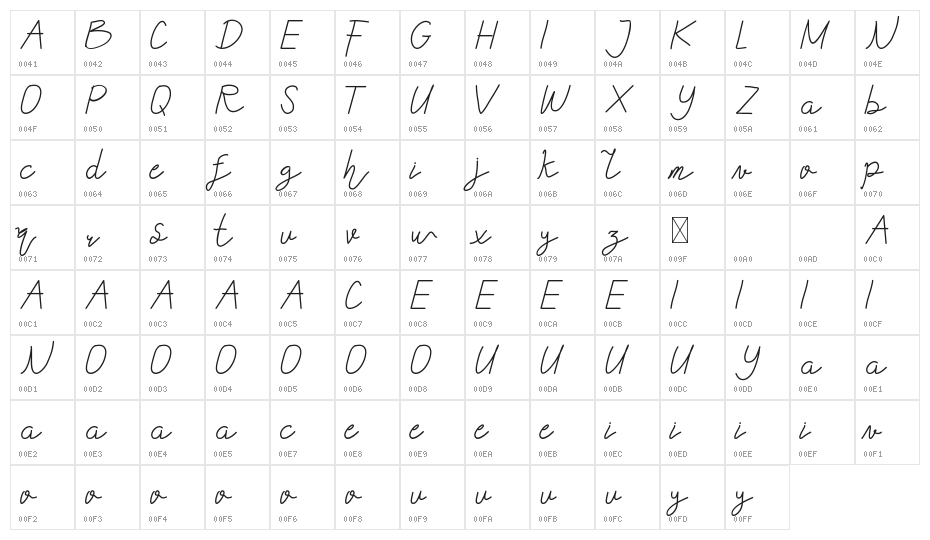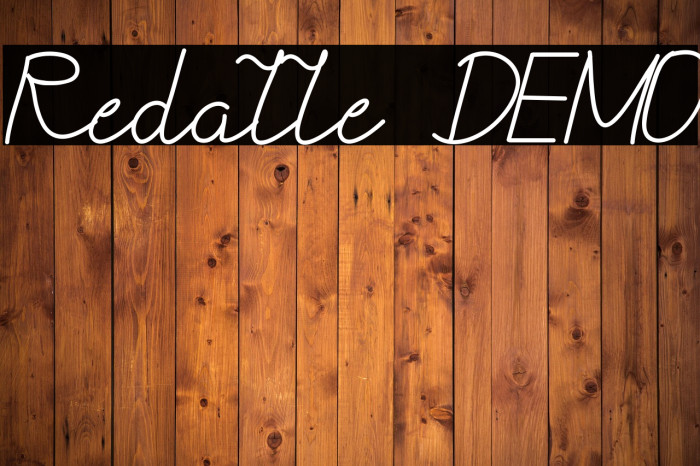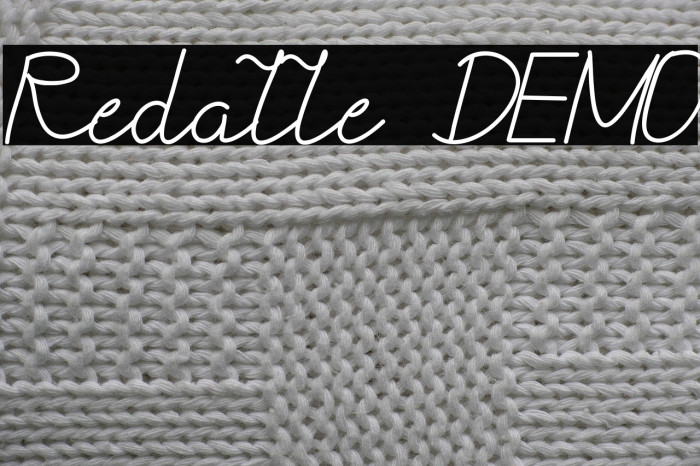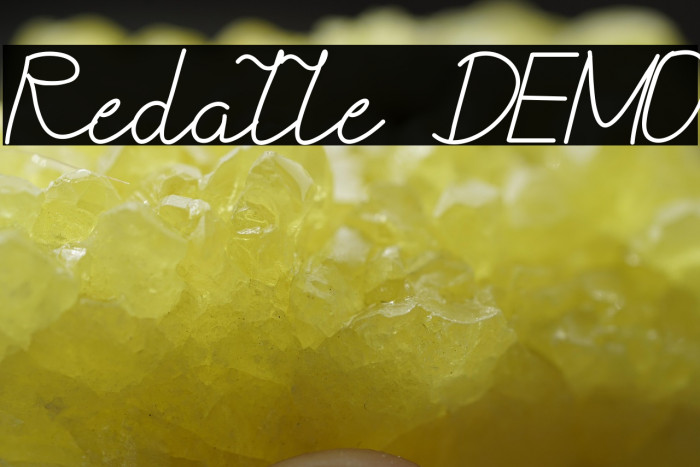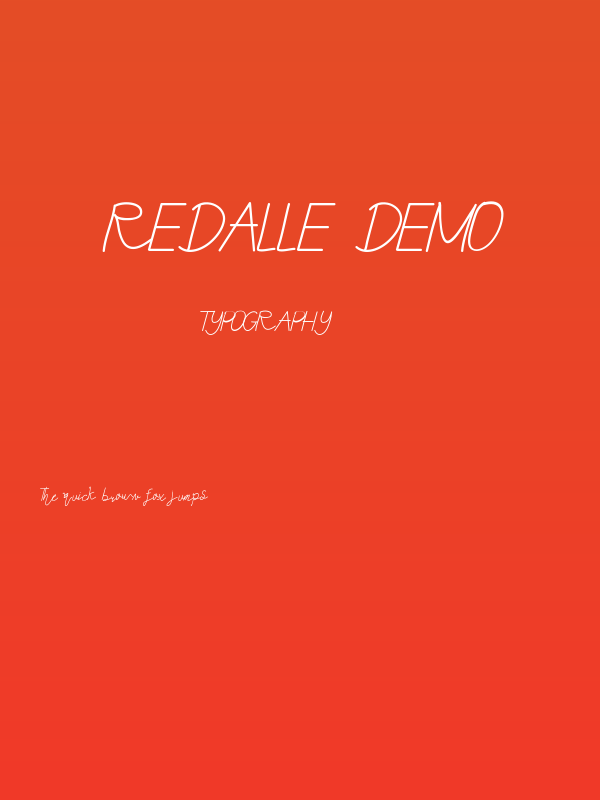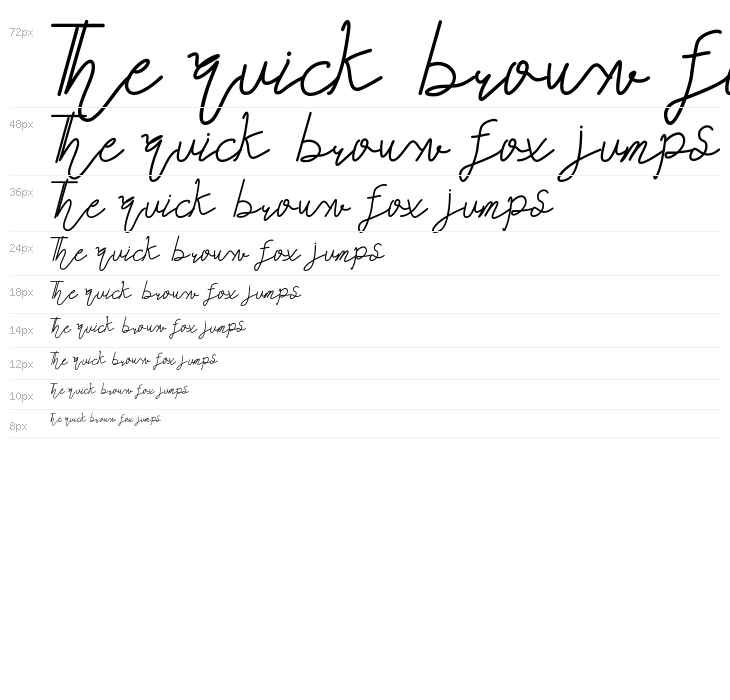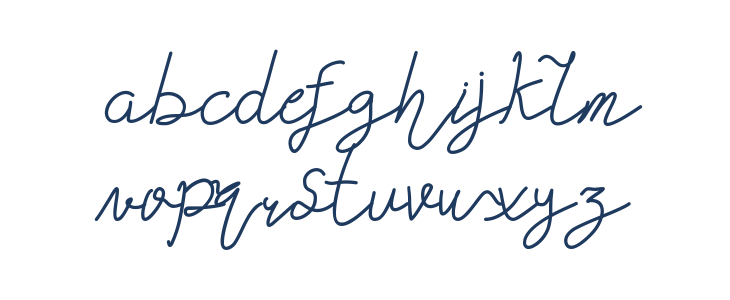
Redalle DEMO Font
Redalle DEMO Description
This font features a dynamic and fluid script style, characterized by its elegant and flowing letterforms. The strokes are smooth and continuous, giving it a handwritten appearance that is both casual and sophisticated. The uppercase letters are tall and slightly narrow, while the lowercase letters maintain a consistent flow with subtle variations in height and width. The overall design exudes a sense of movement and grace, making it suitable for projects that require a personal touch. The font's legibility is enhanced by its clear distinction between characters, despite the cursive connections.
| Proposed Projects | Ideal for wedding invitations, greeting cards, personal branding, and logo design. |